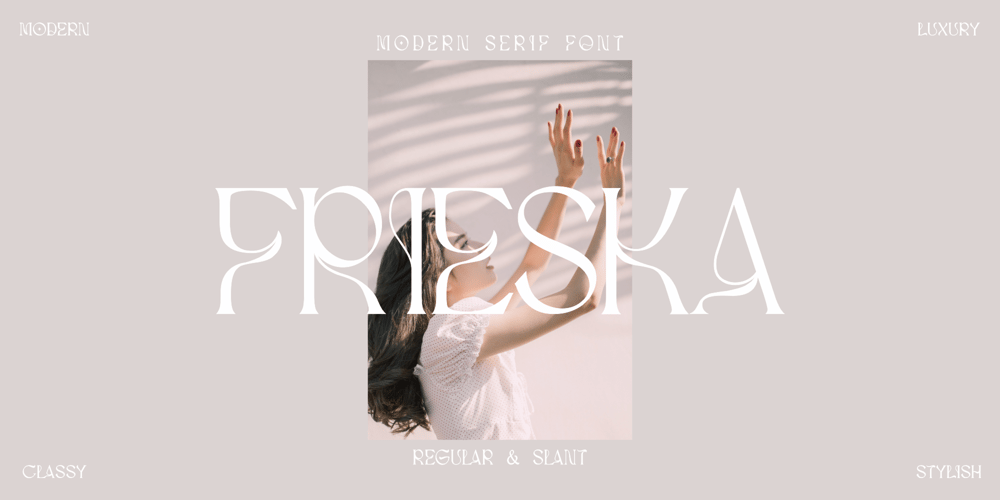
FRIESKA Font Family was designed by Faizul Muna and published by Unitype Studio. FRIESKA contains 2 styles and family package options. FRIESKA is a modern serif typeface. It is consist two styles : Regular and Slant.This gorgeous font will engage your audience and make your promotions and projects stand out. Bring your branding to life and add a touch of modernity and style with this font. It’s the perfect fit for all luxury projects, such as wedding invitation, signatures, luxury logos, printed quotes, grettings cards, social media headers, product packaging and many more!Thanks for downloading, and I hope you enjoy it!